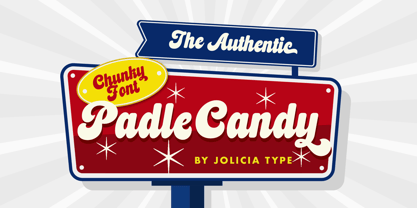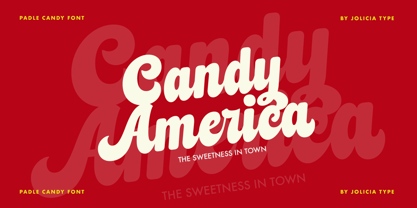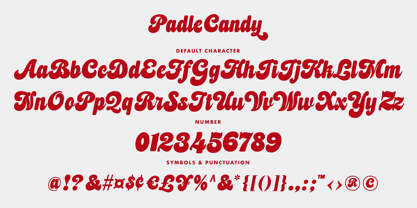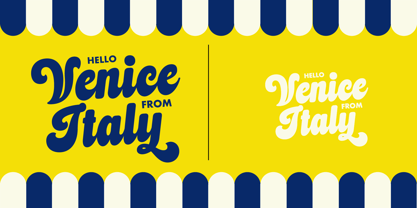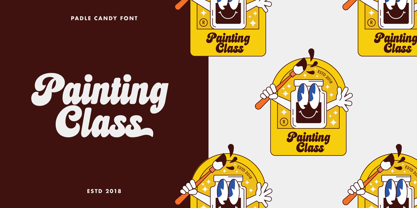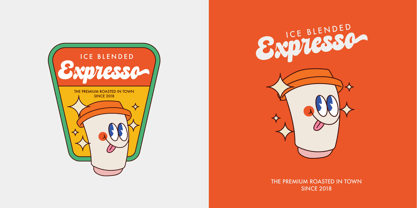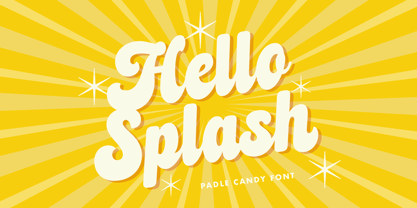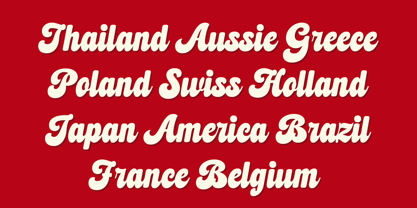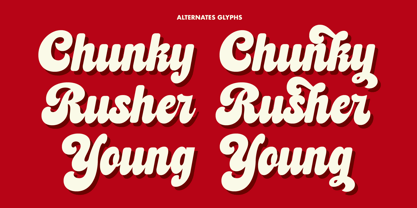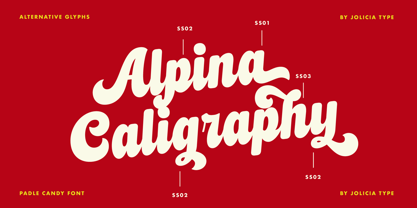
Padle Candy
by Jolicia Type
The Padle Candy Font Family was designed by Laire Banyu and published by Jolicia Type. Padle Candy contains 1 styles. More about this family
Padle Candy is a playful chunky script font that radiates sweet personality and cheerful energy. With its bold curves, bouncy letterforms, and soft handwritten flow, this font infuses a fun and friendly vibe into every design. Drawing inspiration from candy packaging, retro sweets, and joyful pop aesthetics, Padle Candy offers a charming appearance that captures attention while remaining warm and approachable. Ideal for branding, snack packaging, playful logos, social media graphics, birthday invitations, stickers, posters, apparel, and fun merchandise, this font adds a deliciously happy touch to any creative project. Its chunky strokes and smooth script style strike a perfect balance between cute, bold, and highly readable typography. Whether you're crafting vibrant branding or eye-catching headlines, Padle Candy is the ultimate choice for designs that aim to convey energy, sweetness, and joy.
Designers: Laire Banyu
Foundry: Jolicia Type